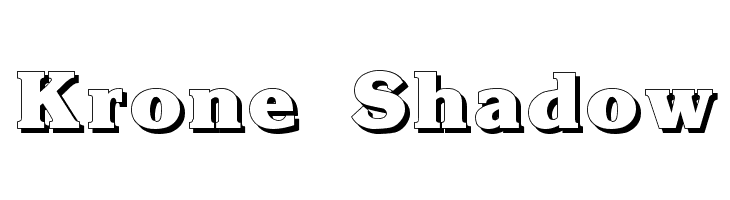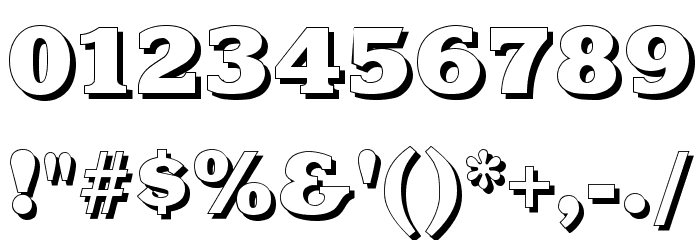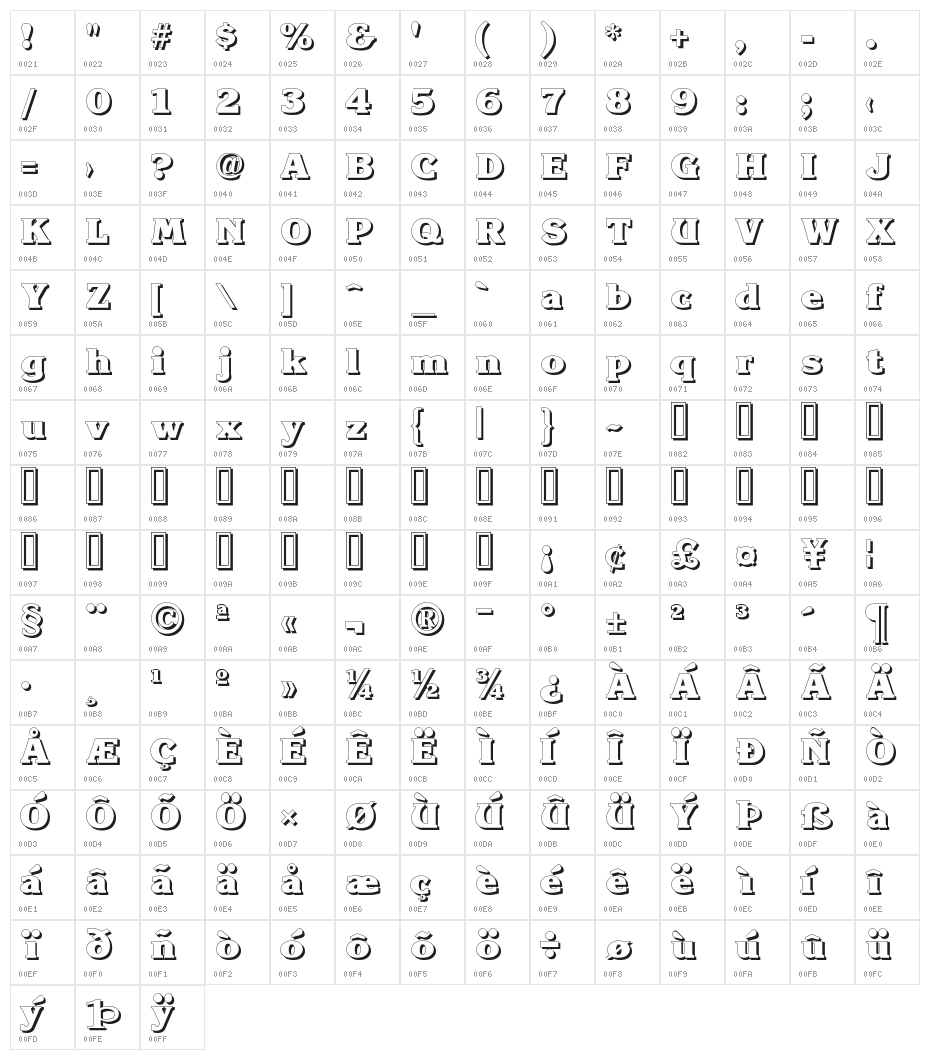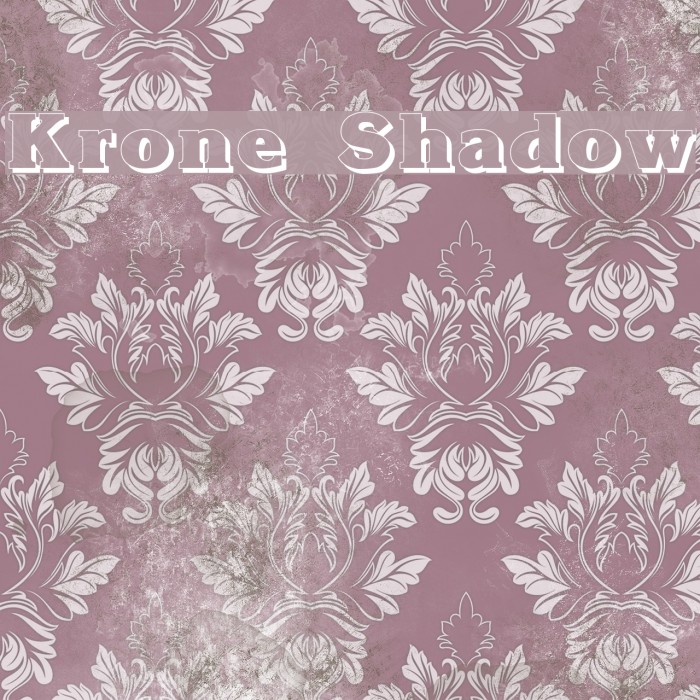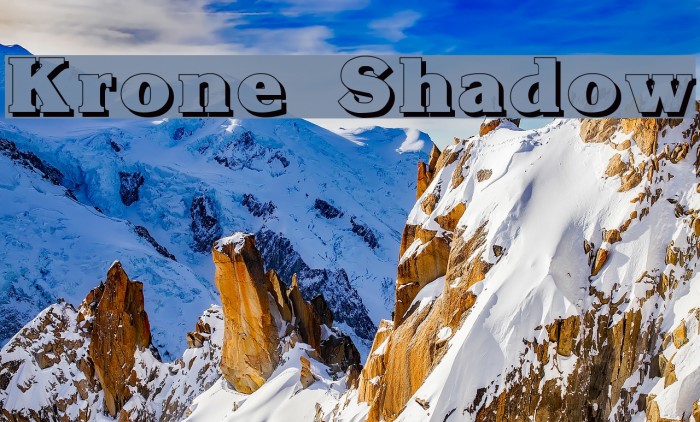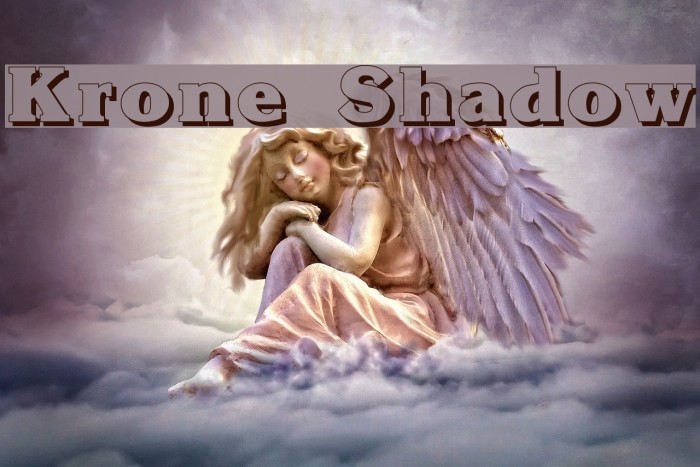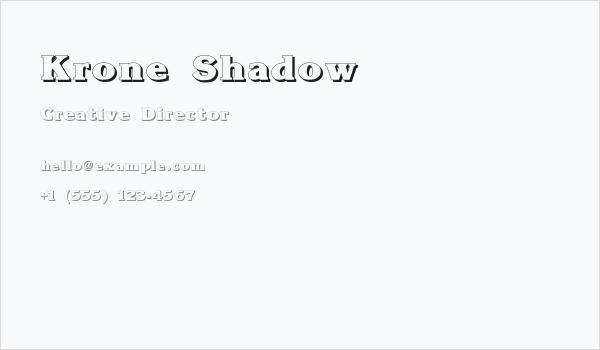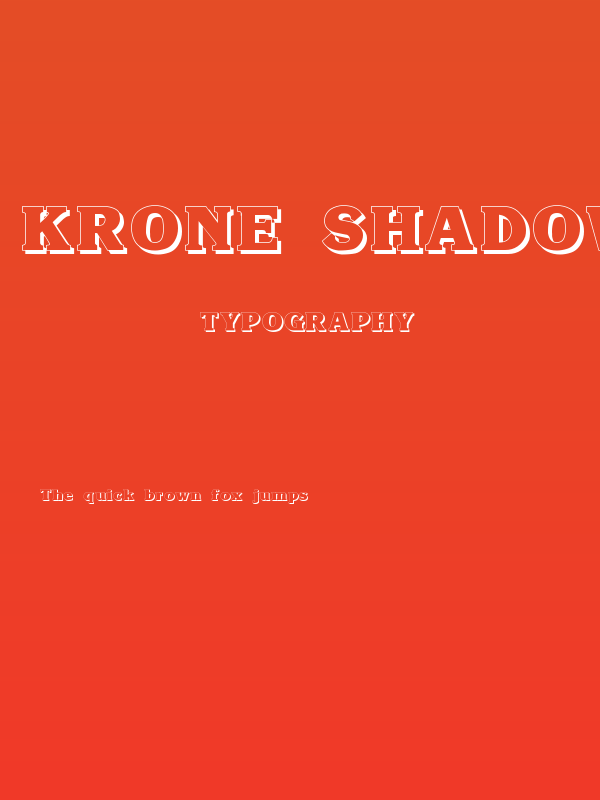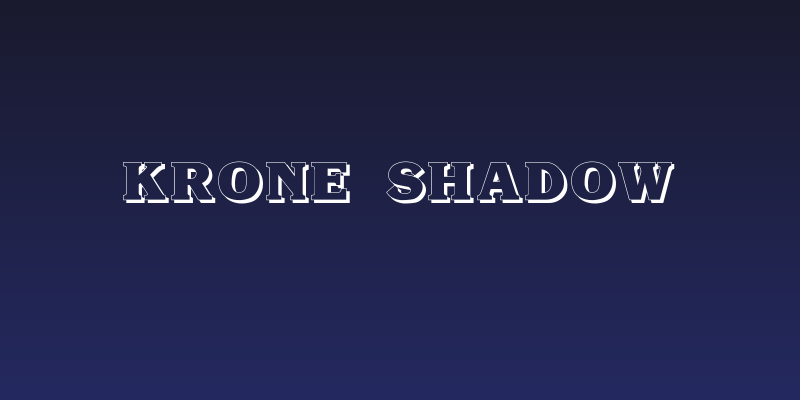
Krone Shadow Font
Krone Shadow Description
This font features a bold, shadowed style that gives each character a three-dimensional appearance. The uppercase and lowercase letters are robust and impactful, with a consistent shadow effect that enhances their visibility and adds depth. The numerals and special characters maintain this shadowed theme, ensuring uniformity across all glyphs. The font's design is both classic and decorative, making it suitable for projects that require a strong visual presence. Its boldness and shadow effect make it stand out, ideal for attention-grabbing headlines or titles.
| Proposed Projects | Ideal for posters, logos, headlines, and any design requiring a strong, eye-catching font. |